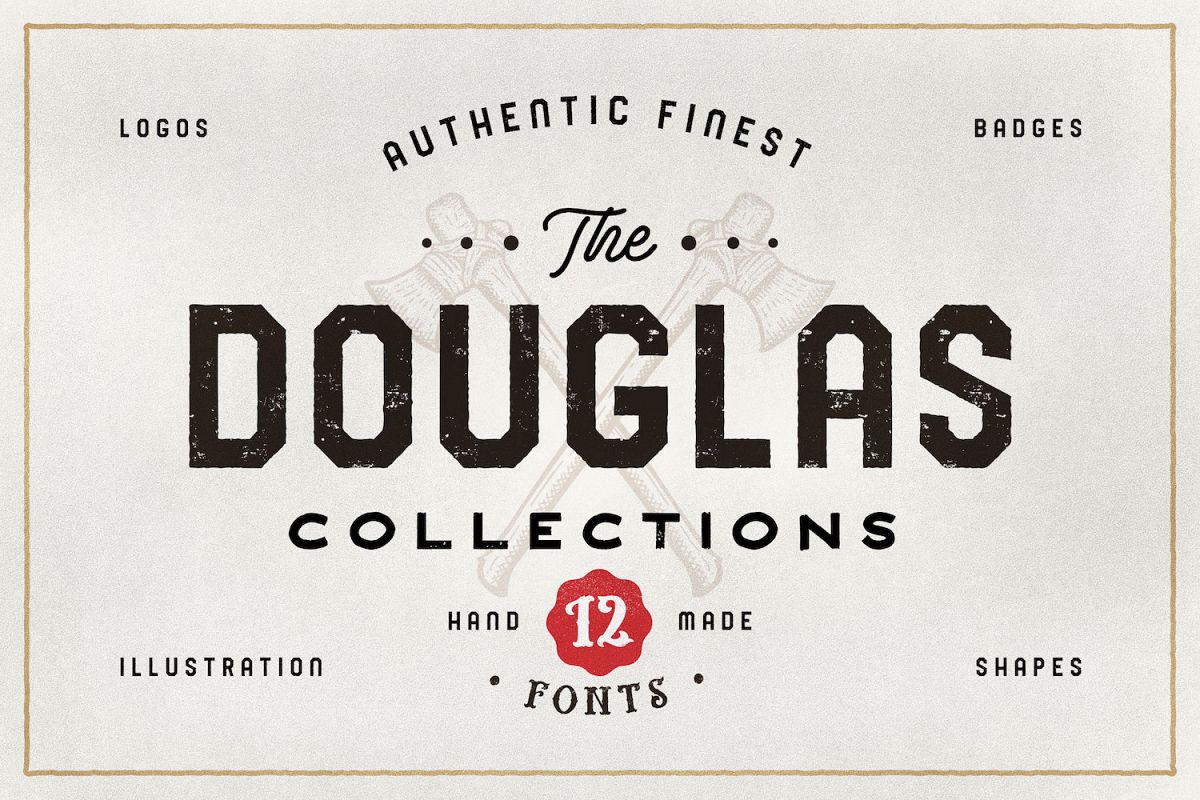
The Douglas Collections
Douglas-Burlington-Regular
Douglas-Wolves-Sans
Douglas-Norwood-Old
Douglas-Aaronade-Script
Douglas-Wolves-Serif
Douglas-Rutland-Extended
Douglas-Morphic-60s
Douglas-Palmeira-Script
Douglas-Ogdensburgh-Condensed
Douglas-Calgury-Block
Douglas-Montreal-Rounded
Douglas-Ancaster-Script
THE DOUGLAS COLLECTIONS
Introducing the new HUGE pack of my work. The DOUGLAS ! Comes with 12 Handmade FONT FILES with rough effect, 25 Detailed Illustration, 24 Editable text Logos and 36 Shape Badges (72 if counting with Line verson of badges).
I've never been easier to create the vintage Display image of the product except this one. You can mix and match the font you want to use, the illustration or use the badges on your design. This pack is great to use on two tone color or with colored design like for logos, posters, advertising, book cover, and other artwork.Font Character Guide : https://goo.gl/w3gBe8